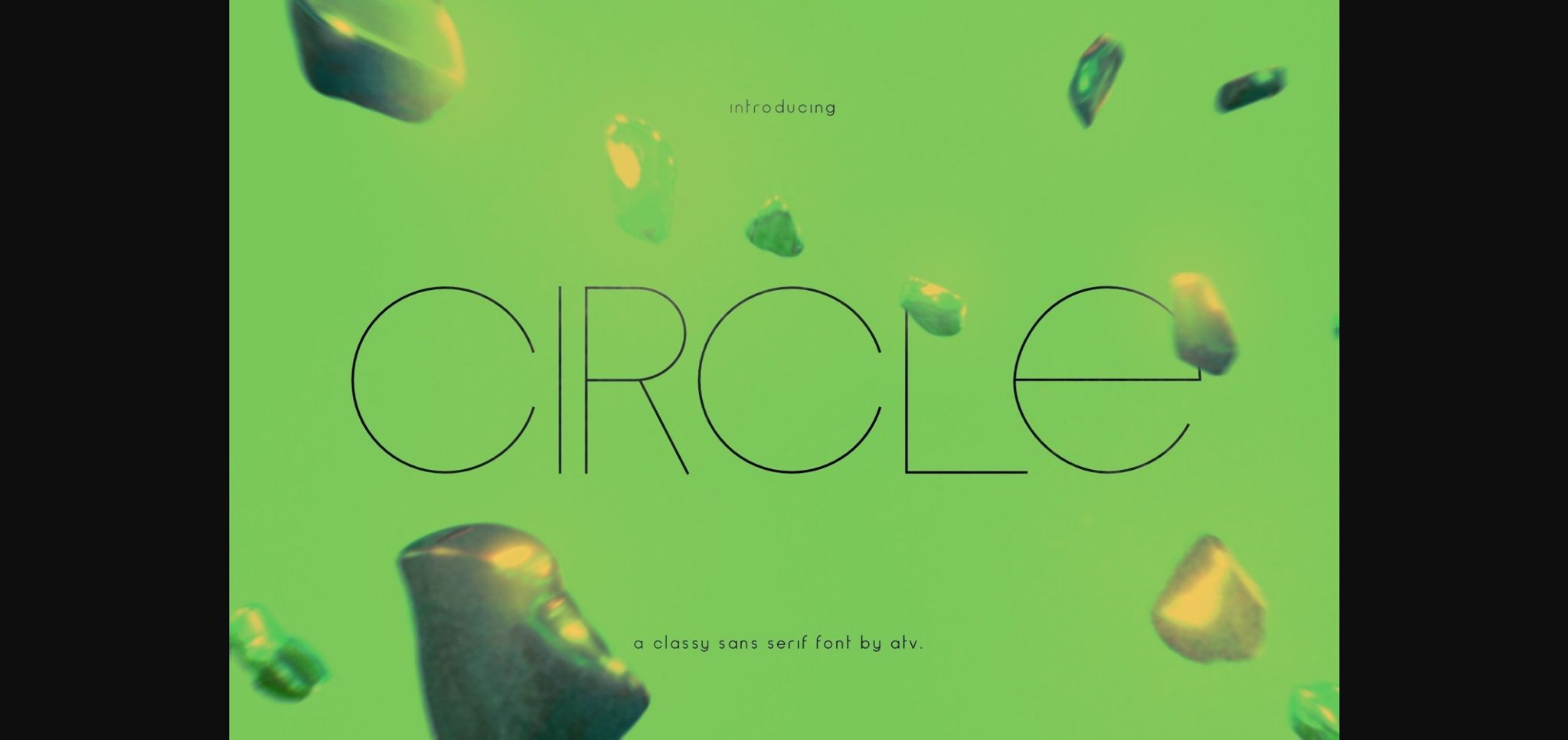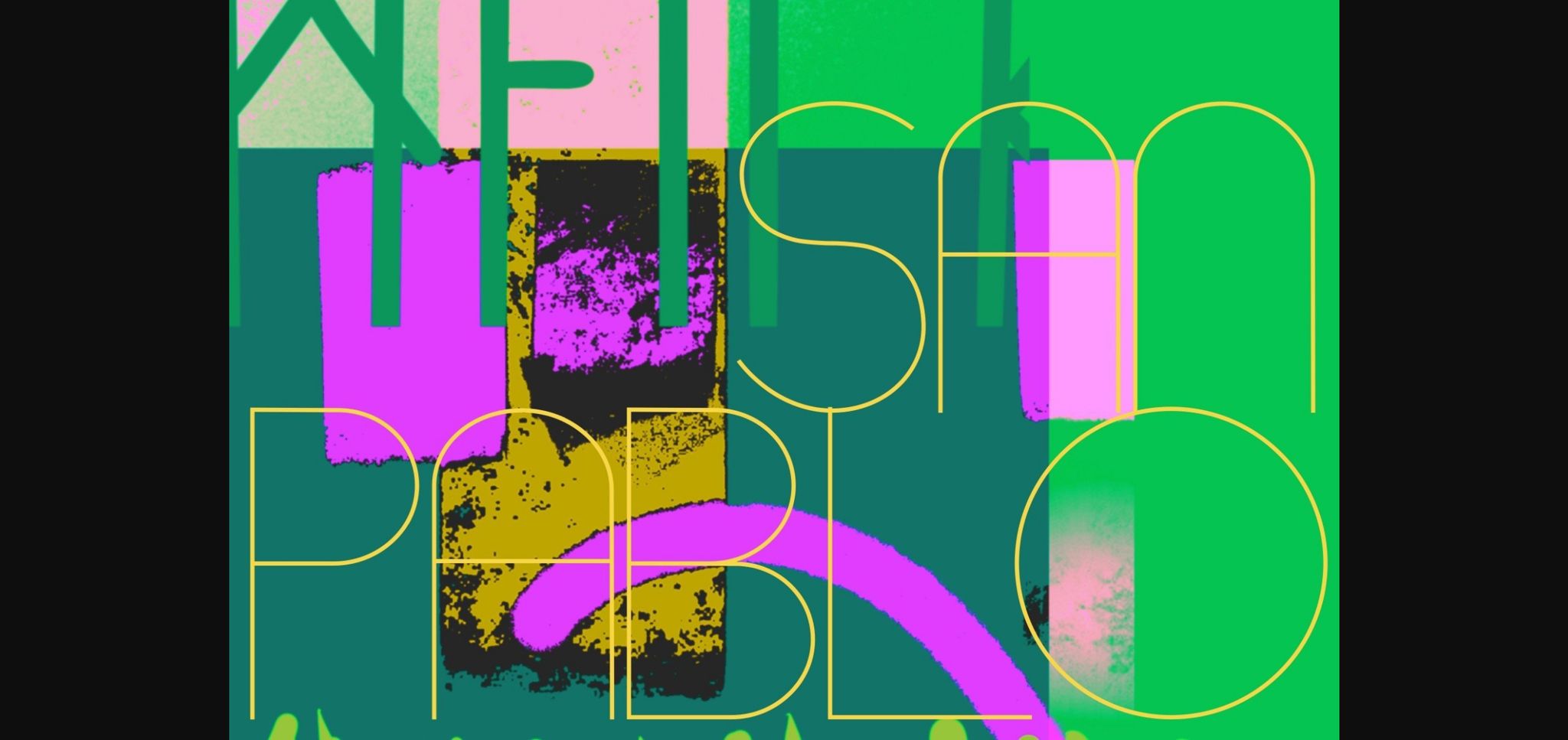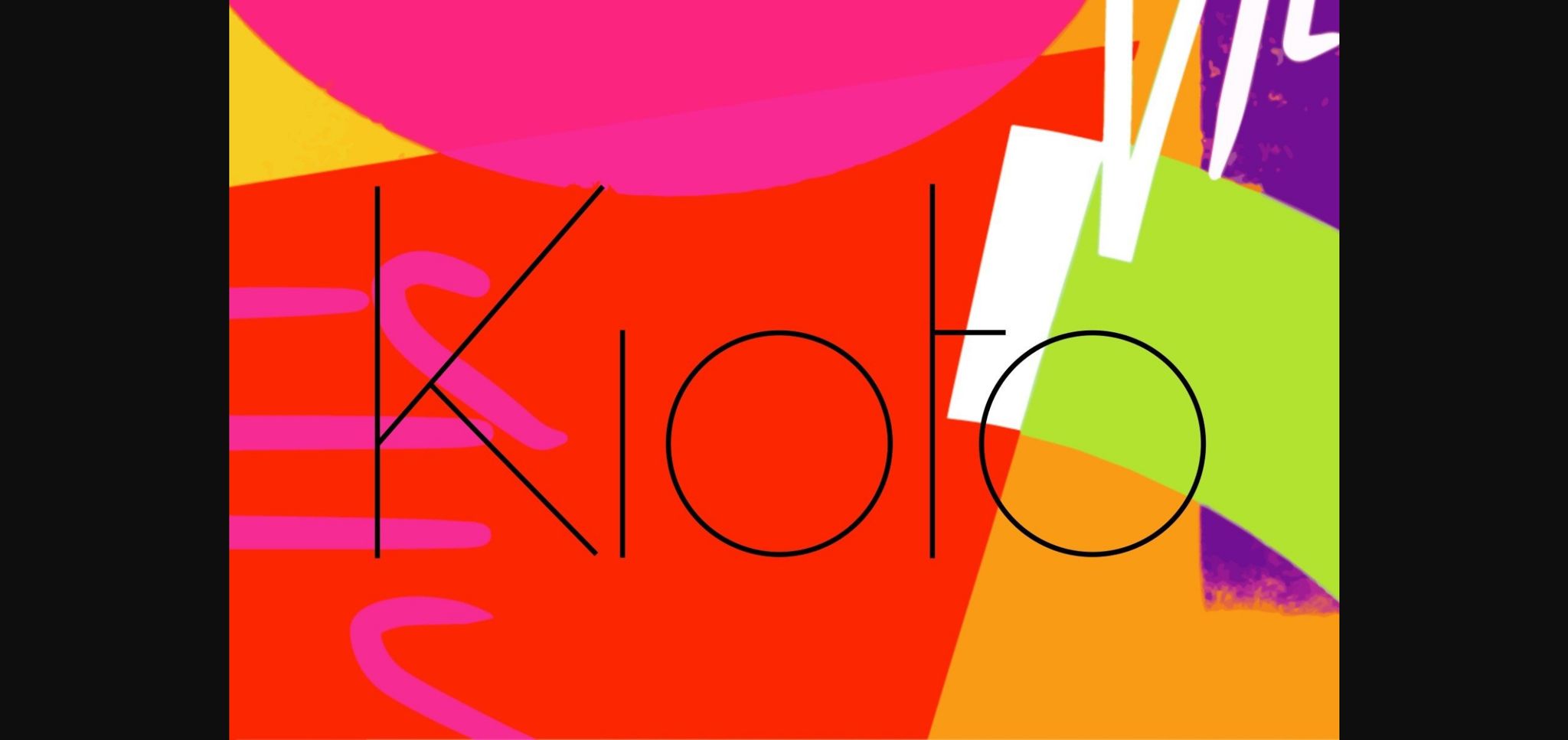
About Circle Font
Circle is a stylish, thin-lettered sans serif font. Add it confidently to your projects and you will be astounded by the outcome generated!